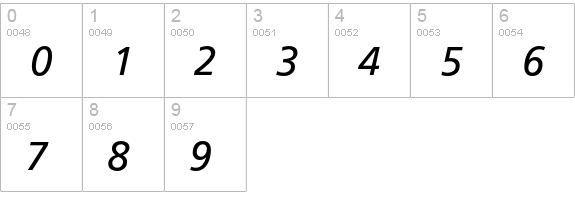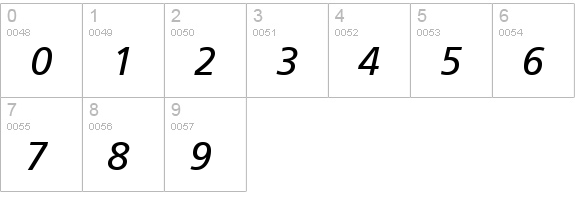
FreewayRomanItalic Font Details
FreewayRomanItalic is a beautifully crafted font that exudes elegance and sophistication. Its sleek and stylish italic design adds a touch of flair to any project, making it perfect for both professional and creative use. The flowing curves and delicate strokes of FreewayRomanItalic evoke a sense of modernity and sophistication that is sure to make your text stand out. What's even better is that FreewayRomanItalic is available for free download at FontsMarket.com! This means you can enhance your designs with this stunning font without any cost. Whether you're working on a website, a branding project, or any other creative endeavor, FreewayRomanItalic is the perfect choice to add a touch of class and elegance. Download now and see the difference it can make in your designs!